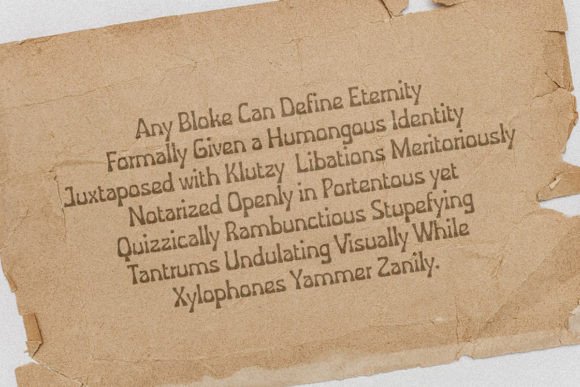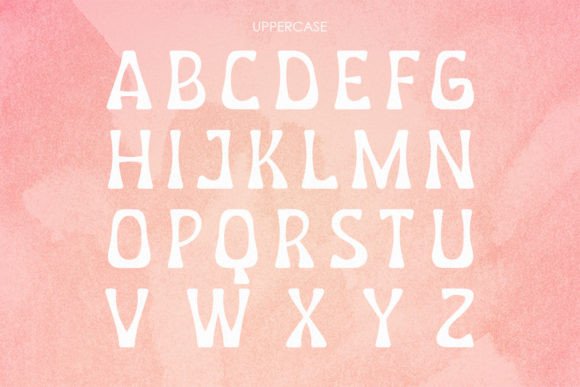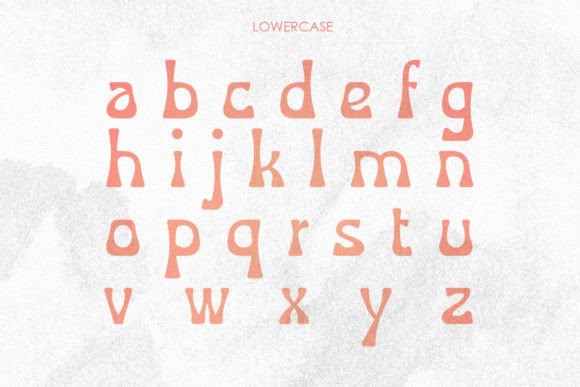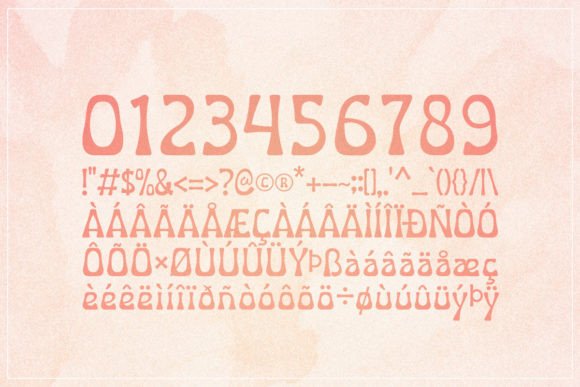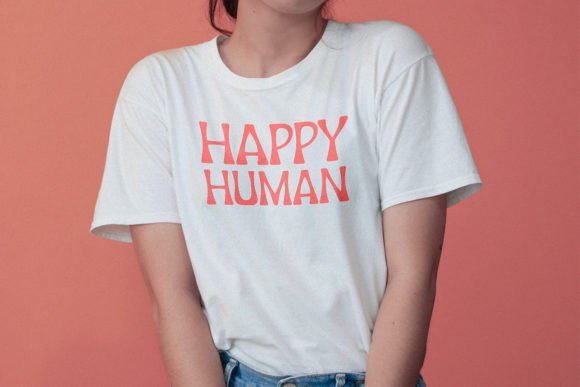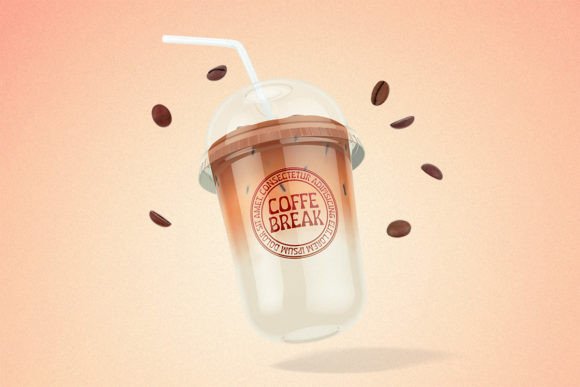
Introduction to Monolose Font
Remember that moment when a spark of creativity hits, and you’re suddenly flooded with ideas for your next design project? It’s as if the entire world has opened up, and you’re eager to bring your vision to life. For many designers, this feeling is what drives them to create something truly unique and memorable. And that’s exactly what the Monolose Font is all about – capturing that essence of creativity and bringing it to the forefront of your design.
As a valuable resource for designers, the Monolose Font offers a modern look with a touch of a free spirit, making it perfect for branding, logos, initials, invitations, blogs, social media, and more. Its versatility and high-quality design make it an ideal choice for any creative project, from digital to print.
Key Features of Monolose Font
- High-quality, professional font suitable for various creative projects and design resources.
- Includes a transparent background, allowing for seamless integration with your design.
- Monolose Font is available in a single size, making it easy to use and adapt to your design needs.
- Designed at a high resolution (up to 300 DPI), ensuring crisp and clear typography.
- Perfect for designers and artists looking for a unique, modern font to elevate their creative project.
Honest Review: Monolose Font
I recently had the chance to dive into the Monolose Font and I must say, it’s an interesting addition to any design resource. One of the things I appreciate is the high quality of the font itself, which is ideal for any creative project that requires a clean and modern look. The transparent background is a nice touch, allowing for seamless integration into various design elements.
- High-quality font with a clean and modern aesthetic
- ⚠️ Limited font weights and styles, which may not be ideal for complex designs
Overall, I’d say the Monolose Font is a solid addition to any design toolkit, particularly for personal projects or small-scale designs. While it may have some limitations, it’s a high-quality font that’s definitely worth exploring.
The Monolose Font is a versatile and high-quality design resource ideal for creative projects. It offers a transparent background, making it easy to use and customize in various applications.
Tips for Getting the Most Out of Monolose Font
To get the most out of the Monolose Font, use it in combination with other design elements, such as images and graphics. Experiment with different font sizes and styles to add visual interest to your designs.
The Monolose Font is ideal for various creative projects, including:
Business cards, letterheads, and brochures
Social media graphics and advertisements
Presentations and reports
Web design and development
Open Sans is a highly versatile font that is suitable for a wide range of design projects, from web design to print materials. It’s available for free download and features a transparent background, making it ideal for creative projects that require a modern and clean look.